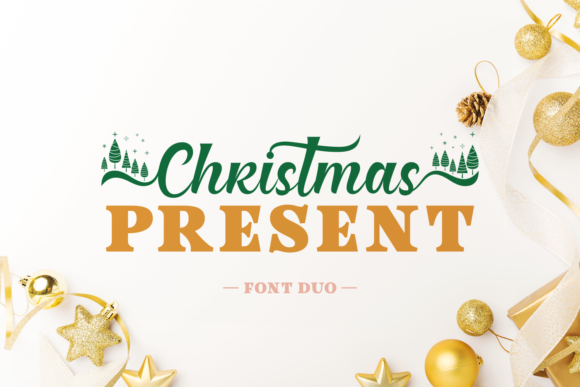
Introducing the Christmas Present Duo Font, a magical script font designed by Situjuh. This remarkable font family is all you need to make this holiday season truly memorable. With its captivating Christmas ornaments and elegant swashes, this font is the ultimate choice for all your Christmas-themed designs.
Imagine the joy and excitement you'll bring to your loved ones with beautifully crafted holiday greeting cards. The Christmas Present Duo Font allows you to effortlessly create heartfelt messages that will warm their hearts and make them feel truly special.
But that's not all! This versatile font is perfect for creating enchanting Christmas dinner invites. Whether you're hosting a cozy family gathering or a grand festive feast, this font will add a touch of elegance and flair to your invitations. Make your guests feel like royalty as they anticipate the most wonderful time of the year.
The Christmas Present Duo Font is more than just a font – it's a gateway to a world of creativity and imagination. Its carefully crafted details and intricate designs will transport you to a winter wonderland, where dreams come true and magic is real. Let your imagination run wild as you explore endless possibilities with this extraordinary font.
Indulge in the joy of creating stunning Christmas-themed crafts, decorations, and even personalized gifts. With the Christmas Present Duo Font, you can easily bring your visions to life and spread holiday cheer to everyone around you. Unleash your inner artist and watch as your creations become cherished memories for years to come.